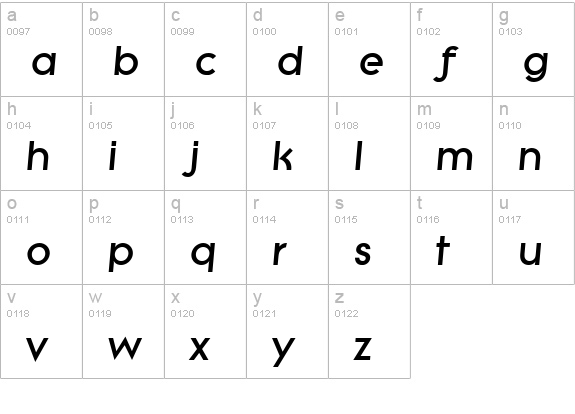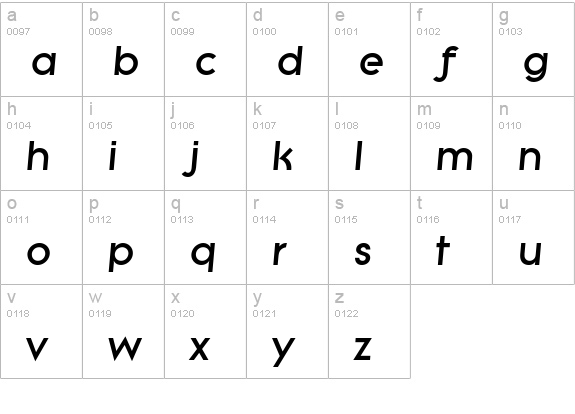
Sabor Display SSi Italic Font Details
Sabor Display SSi Italic is a distinctive, italic variant in the Sabor typeface family \xE2\x80\x94 well suited to design and typography projects.
Sabor Display SSi Italic font is a stunning and elegant typeface that exudes sophistication and style. Its delicate curves and slanted design add a touch of grace and fluidity to any text or design project. Whether used for headlines, logos, or branding materials, this font instantly captures attention and makes a lasting impression. What sets Sabor Display SSi Italic font apart from others is not only its aesthetic appeal but also its accessibility. This font is freely available to download at FontsMarket.com, making it an excellent choice for designers, creatives, and typographers who are seeking high-quality fonts without breaking the bank. The versatility of Sabor Display SSi Italic font cannot be overstated. Its italicized form adds a unique touch to any design, providing a sense of elegance and sophistication. The font's clean and legible characters ensure readability across various mediums, including print and digital platforms. With Sabor Display SSi Italic font, designers have the freedom to explore their creativity and bring their visions to life. Its wide range of glyphs and alternate characters offer endless possibilities for customization, allowing designers to create unique and personalized typographic compositions. Whether used for editorial design, packaging, or web design projects, Sabor Display SSi Italic font guarantees to elevate any design to new heights. Its timeless appeal and refined aesthetics make it a perfect choice for those seeking a font that seamlessly combines elegance and modernity. In conclusion, Sabor Display SSi Italic font is a versatile and captivating typeface that effortlessly captures attention and adds a touch of sophistication to any design. With its freely available download at FontsMarket.com, it is a font that offers both quality and accessibility. Embrace the elegance of Sabor Display SSi Italic font and elevate your designs to new levels of creativity.